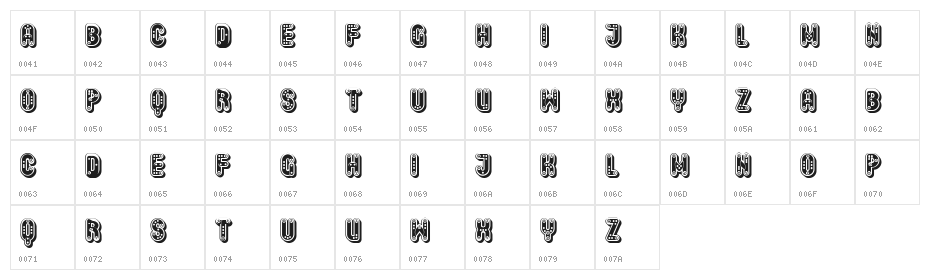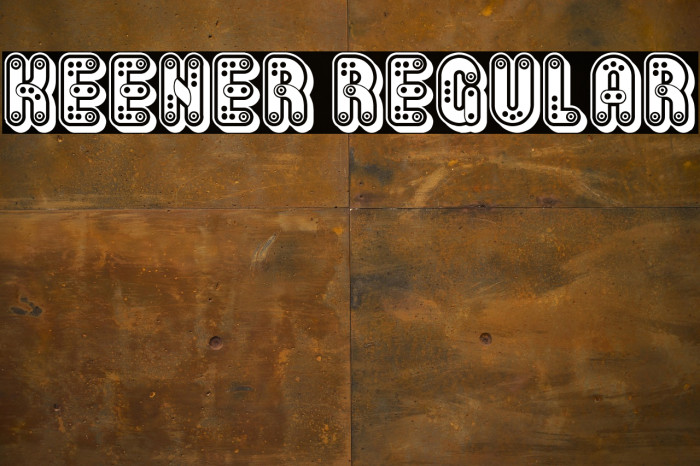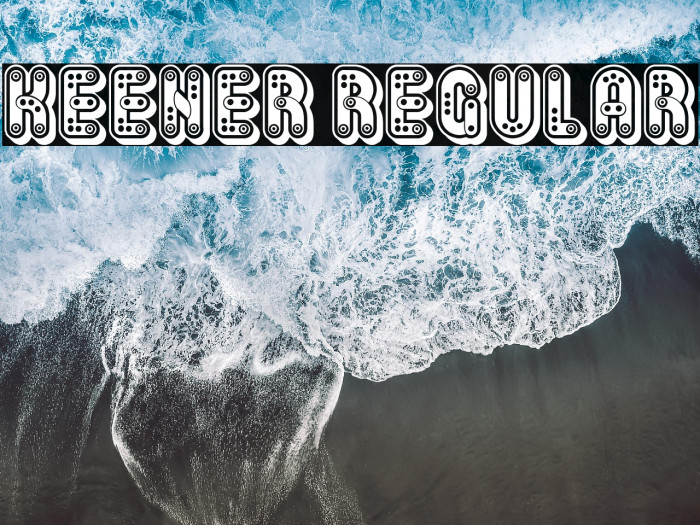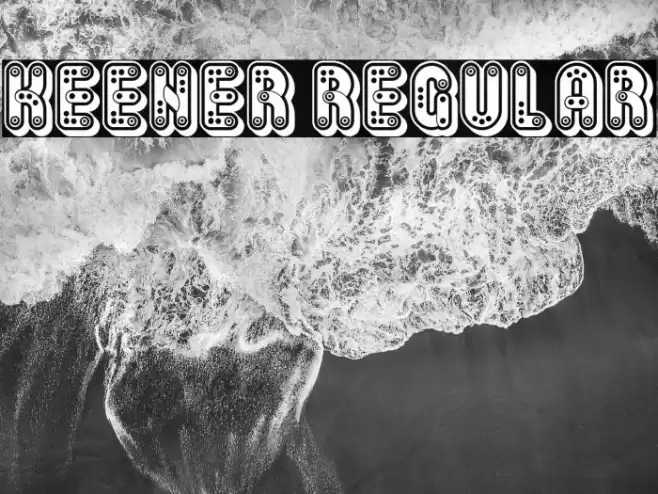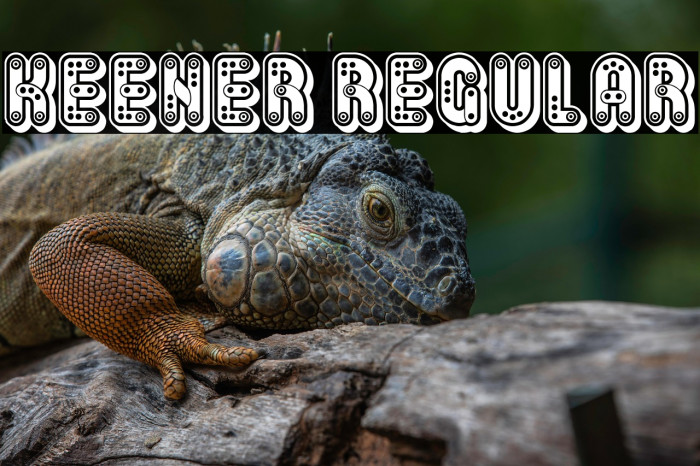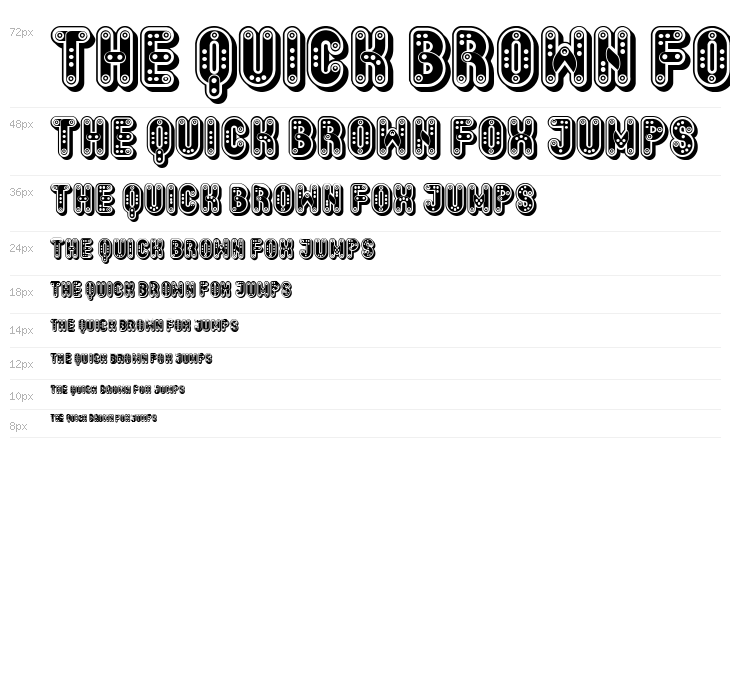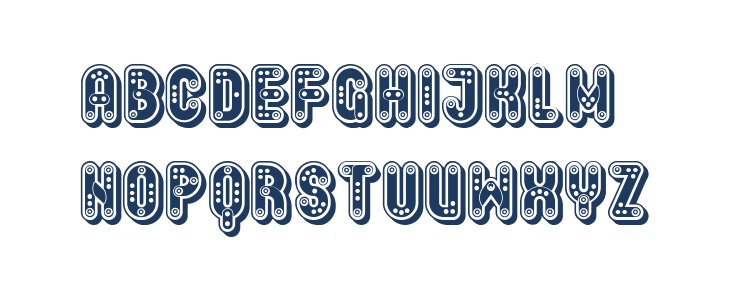
Keener Regular Font
Keener Regular Description
This font features a bold and playful design with a distinct decorative style. Each character is outlined with a thick black border, filled with a white interior, and adorned with circular cutouts that add a unique, eye-catching element. The letters are uniformly bold, giving them a strong presence, while the rounded edges and playful dots create a whimsical feel. This font is ideal for projects that require a fun and engaging visual impact, such as children's books, party invitations, or playful branding materials.
Proposed ProjectsIdeal for children's books, party invitations, playful branding, and eye-catching posters.